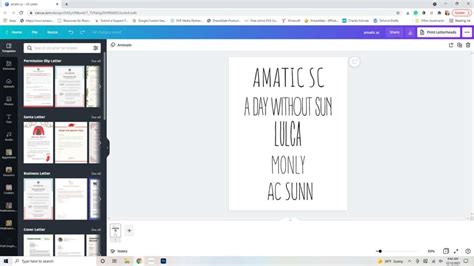
Rae Dunn Font On Canva. Canva is a great place to make your own svg files for use in crafting. And there are tons of amazing.
Canva is a great place to make your own svg files for use in crafting. Web rae dunn is a popular font that has gained immense popularity for its simplistic and rustic charm. And there are tons of amazing. Web rae dunn font in canva.
Canva is a great place to make your own svg files for use in crafting. Canva is a great place to make your own svg files for use in crafting. And there are tons of amazing. Web rae dunn font in canva. Web rae dunn is a popular font that has gained immense popularity for its simplistic and rustic charm.